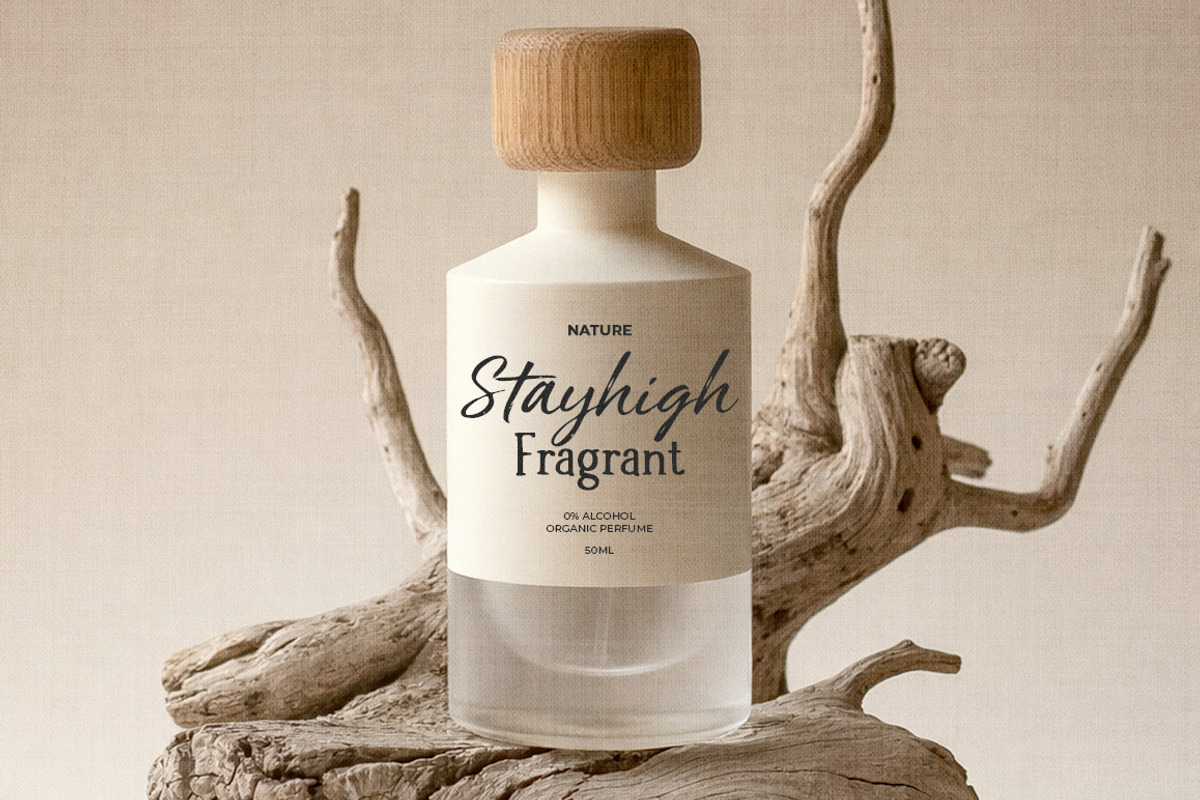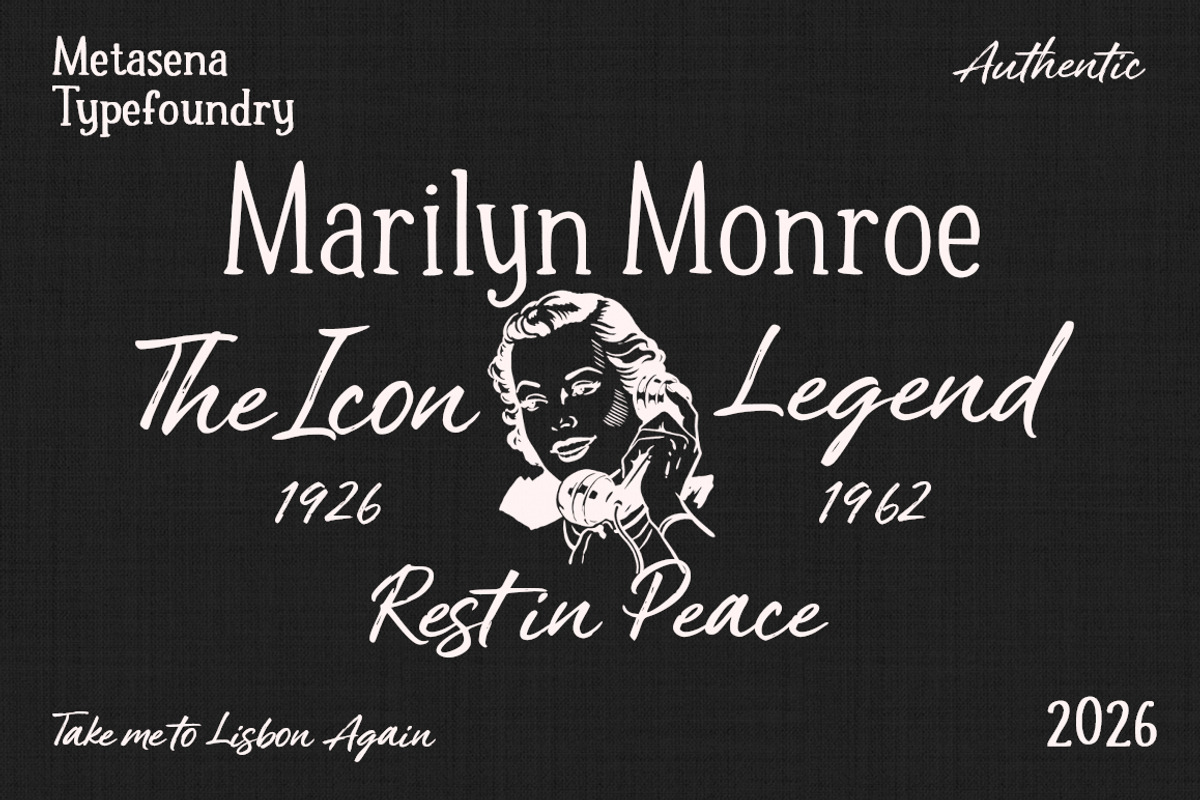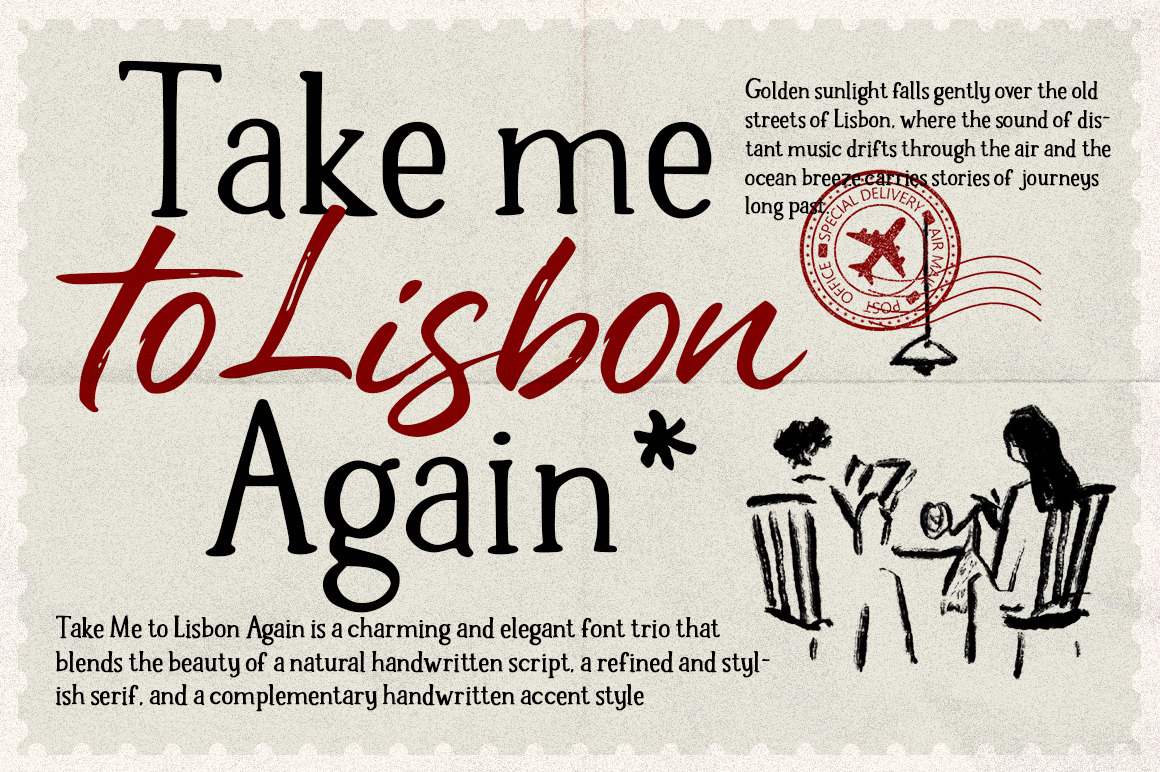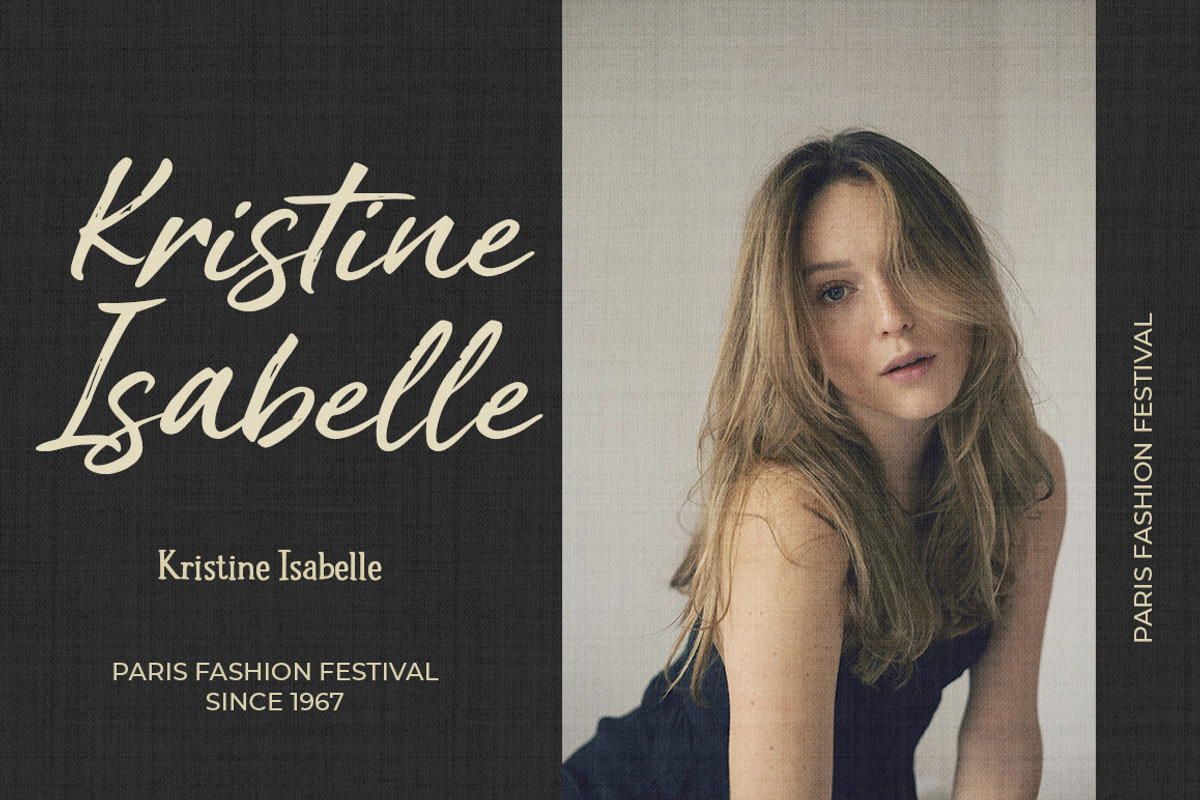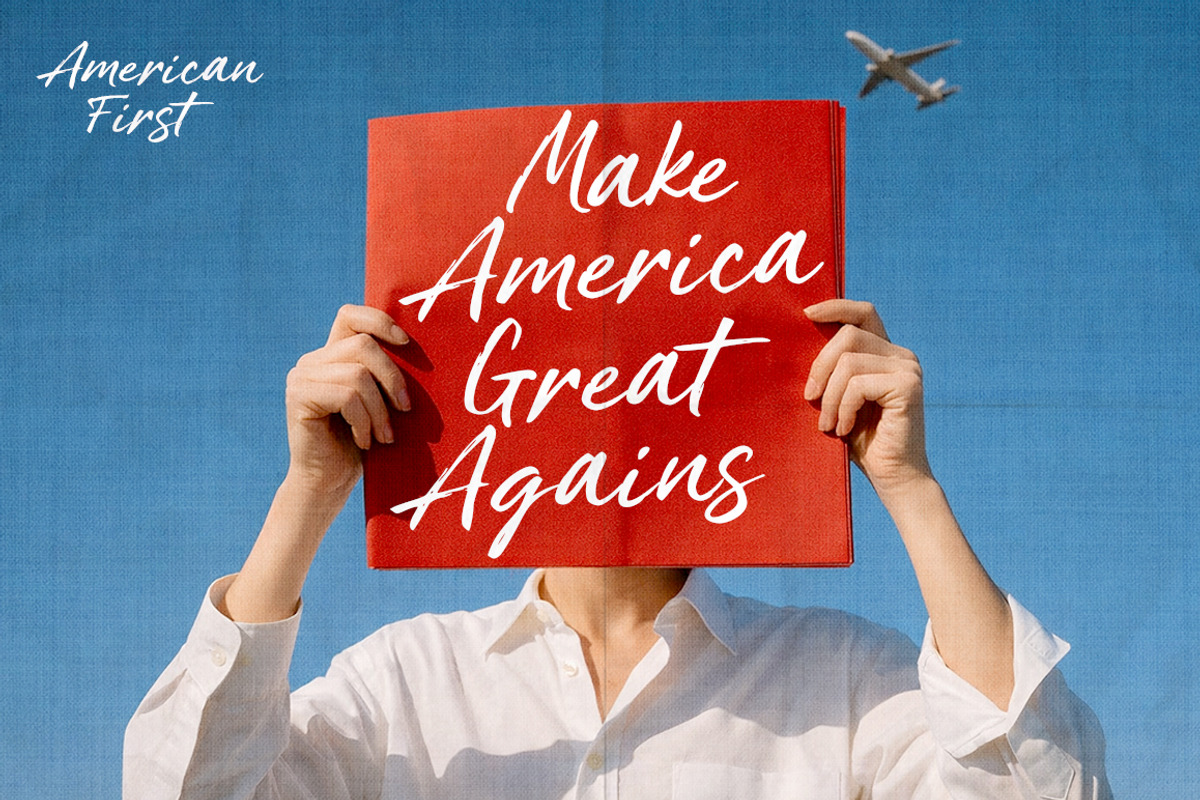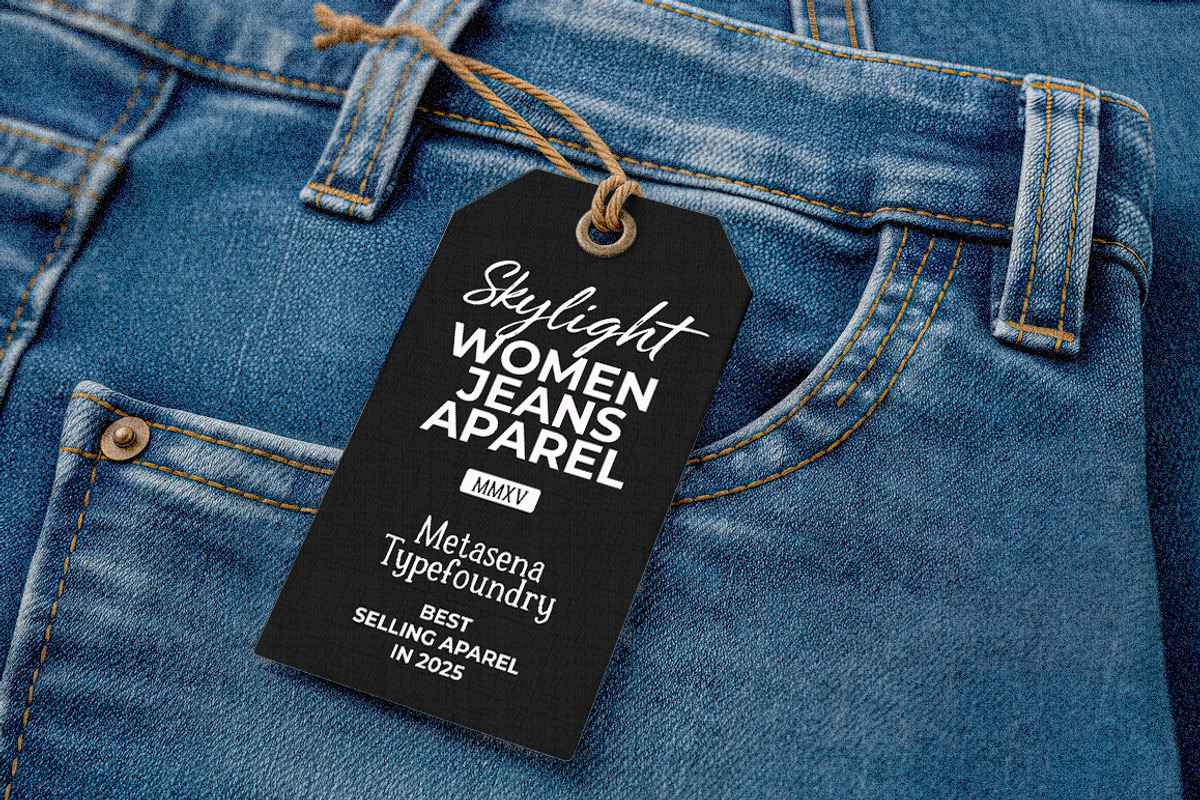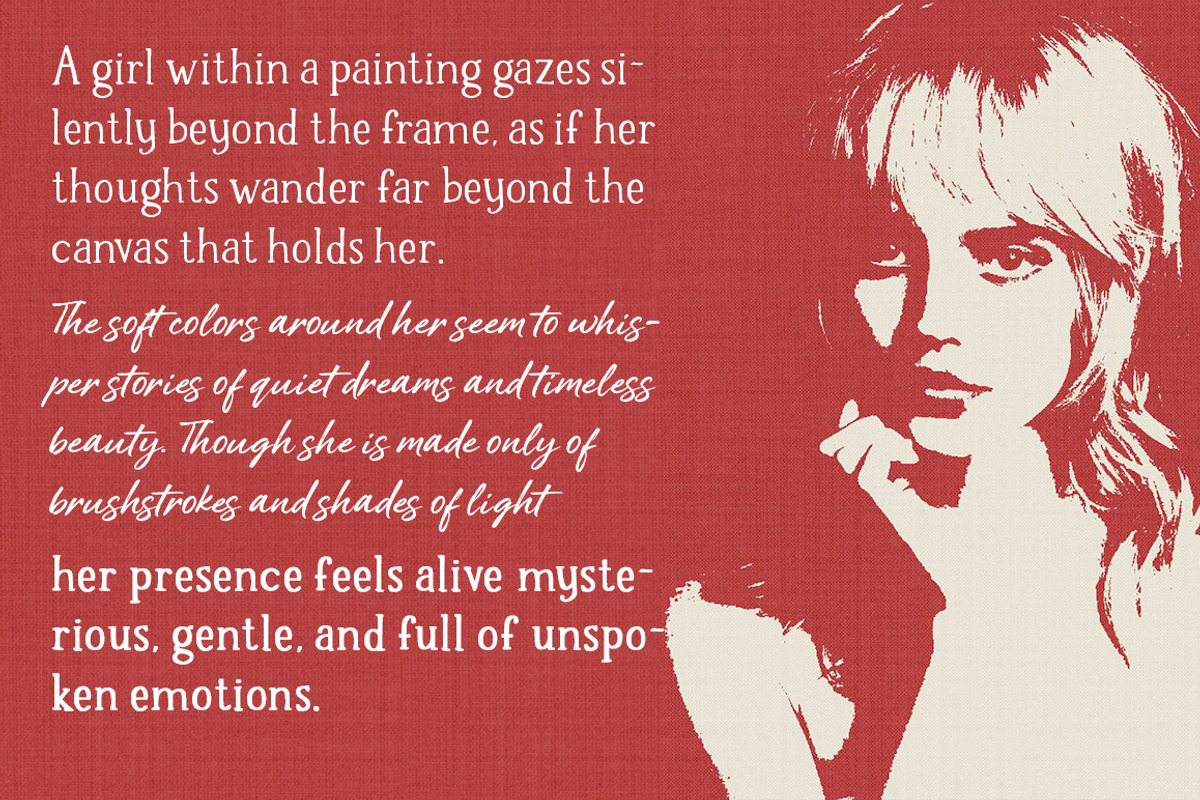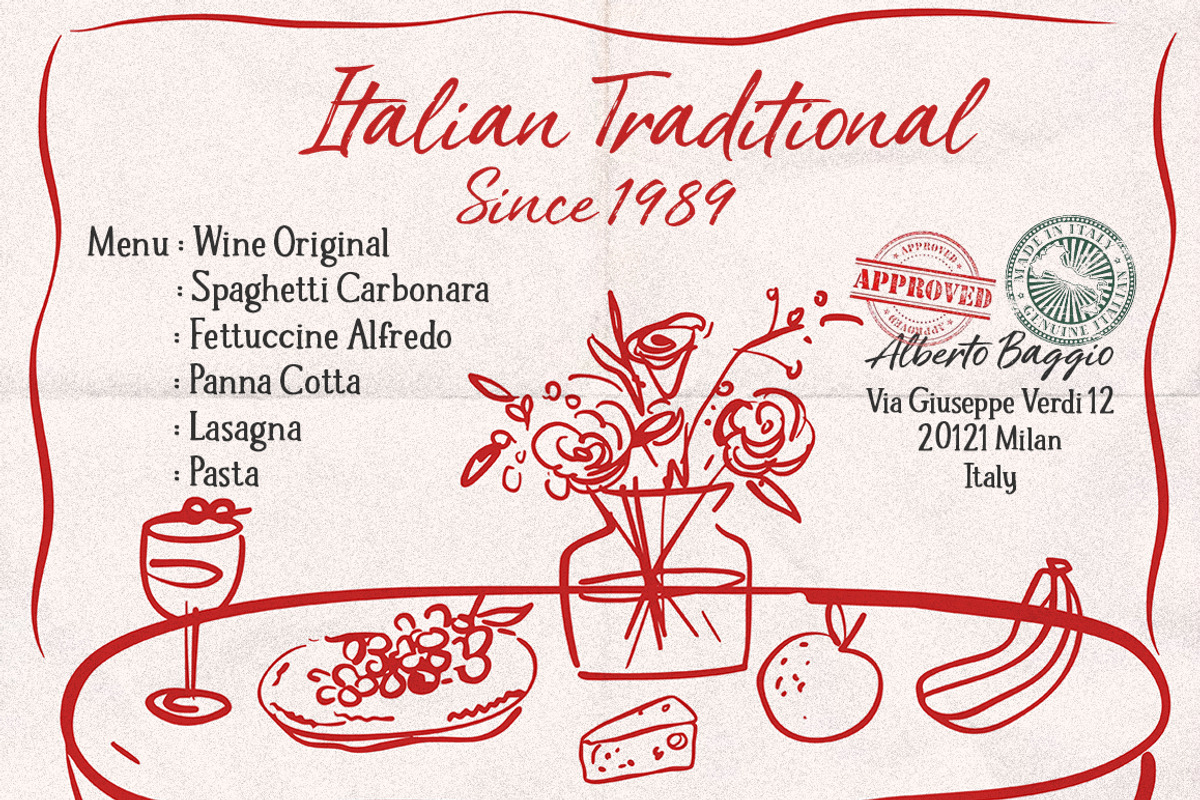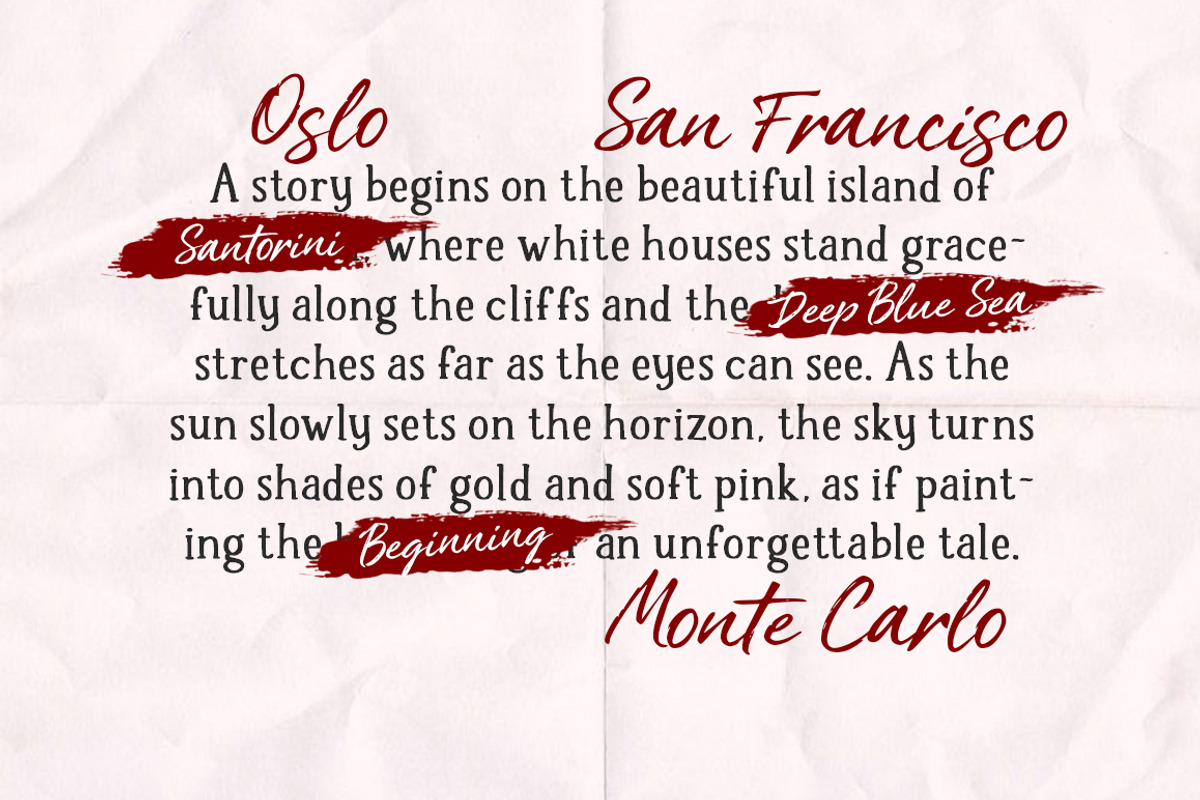
Take Me to Lisbon Again | Trio Font
Take Me to Lisbon Again is a charming and elegant font trio that blends the beauty of a natural handwritten script, a refined and stylish serif, and a complementary handwritten accent style. Inspired by the romantic atmosphere of Lisbon, this typeface collection captures the feeling of warm sunlight, historic streets, and timeless European elegance.
The script font features smooth, flowing strokes with authentic hand-drawn character, giving your designs a graceful and personal touch. The serif font brings balance with its classic structure, refined proportions, and modern sophistication, making it perfect for headlines, branding, and editorial layouts. Completing the trio is a handwritten accent style that adds expressive brush-like strokes, creating a natural and artistic impression.
Together, these three styles work harmoniously to create beautiful typography compositions—perfect for branding, logos, wedding invitations, packaging, social media, editorial designs, and elegant quotes. With its balance of romance, personality, and professional elegance, Take Me to Lisbon Again brings the charm of handwritten artistry and classic typography into one versatile font collection.